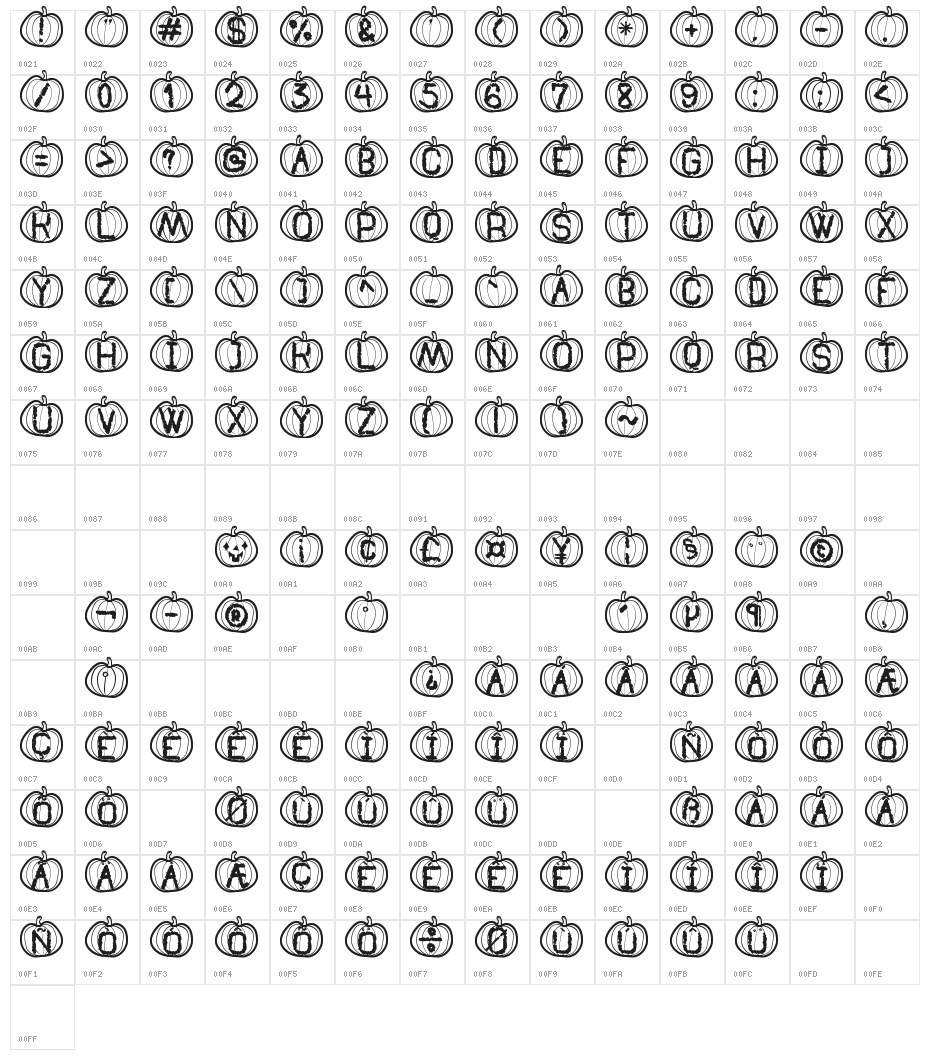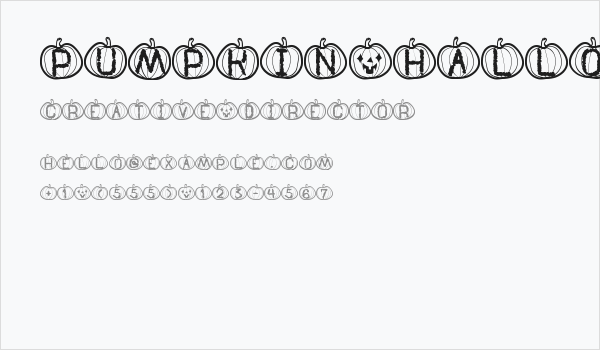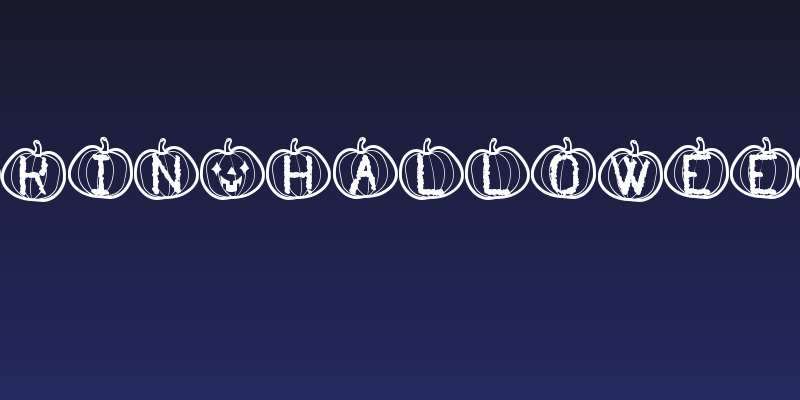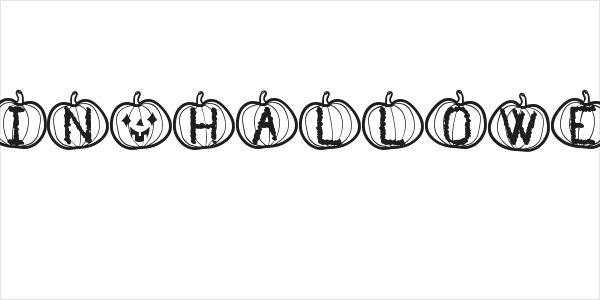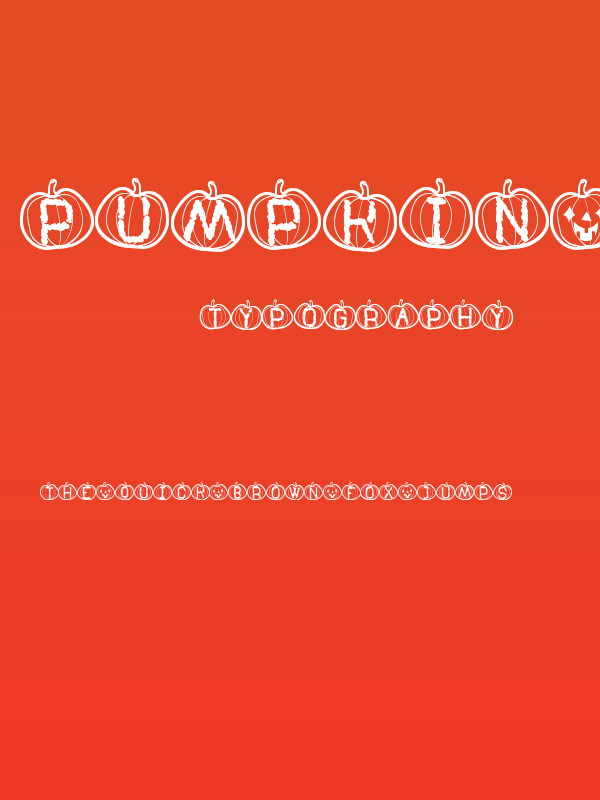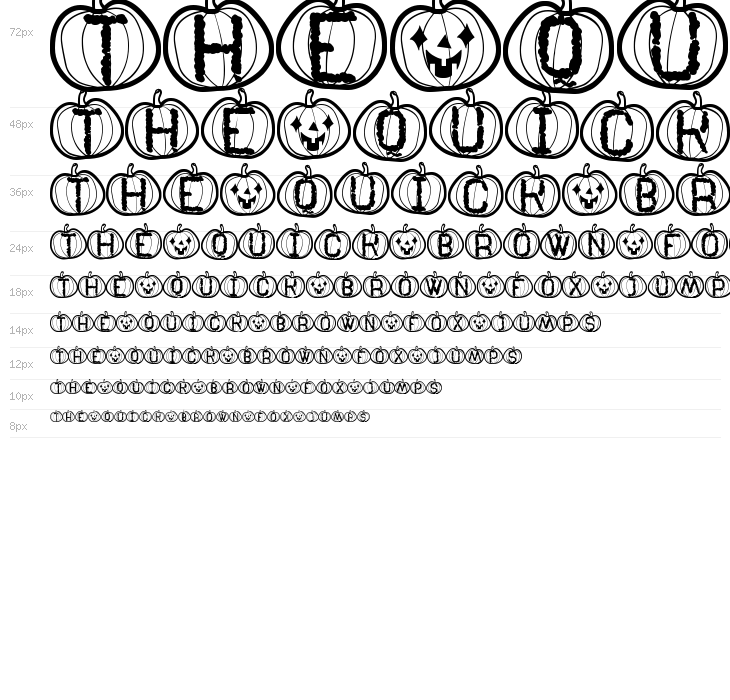
Pumpkin Halloween St Font
Pumpkin Halloween St Description
This playful and thematic font features letters and numbers encased within pumpkin shapes, perfect for Halloween-themed projects. Each character is designed to resemble a carved pumpkin, complete with a stem on top, adding a festive and whimsical touch. The font maintains a consistent style with bold outlines and a hand-drawn feel, making it ideal for decorative purposes. The characters are evenly spaced within their pumpkin frames, ensuring readability while maintaining the thematic design. This font is particularly suited for seasonal events, party invitations, and creative projects that require a touch of Halloween spirit.
| Use Case | Headlines, Logos, Decorative text |
| Proposed Projects | Ideal for Halloween invitations, themed posters, party decorations, and festive banners. |